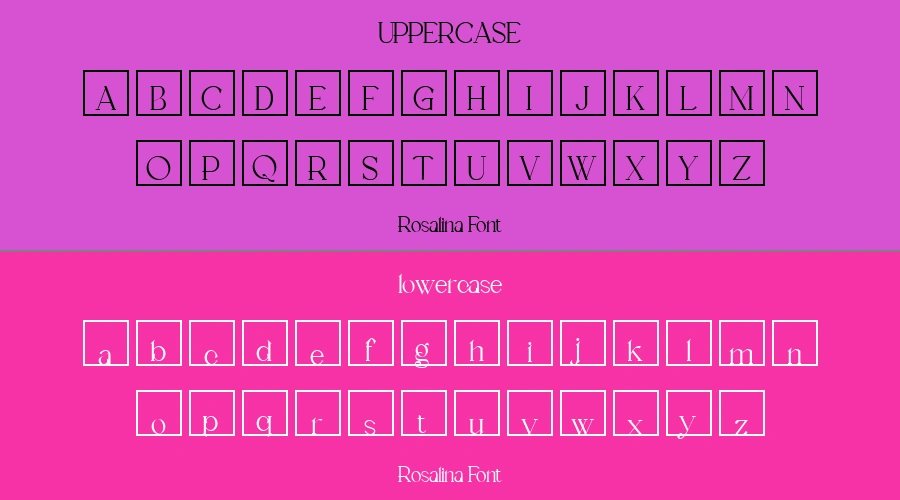
About Rosalina Font
Designed with precision, Rosalina Font merges perfect spacing with classic beauty in every character. This versatility makes it particularly effective for advertising headers, where consistency and market relevance directly impact communication quality. Each letterform demonstrates meticulous craftsmanship.
Technical excellence shines through elements like hairline details and standard ligatures, enhancing typographic versatility. In sidebars settings, Rosalina Font proves its worth through superior small text rendering. The thoughtful execution of serif length and scientific authority ensures professional results.